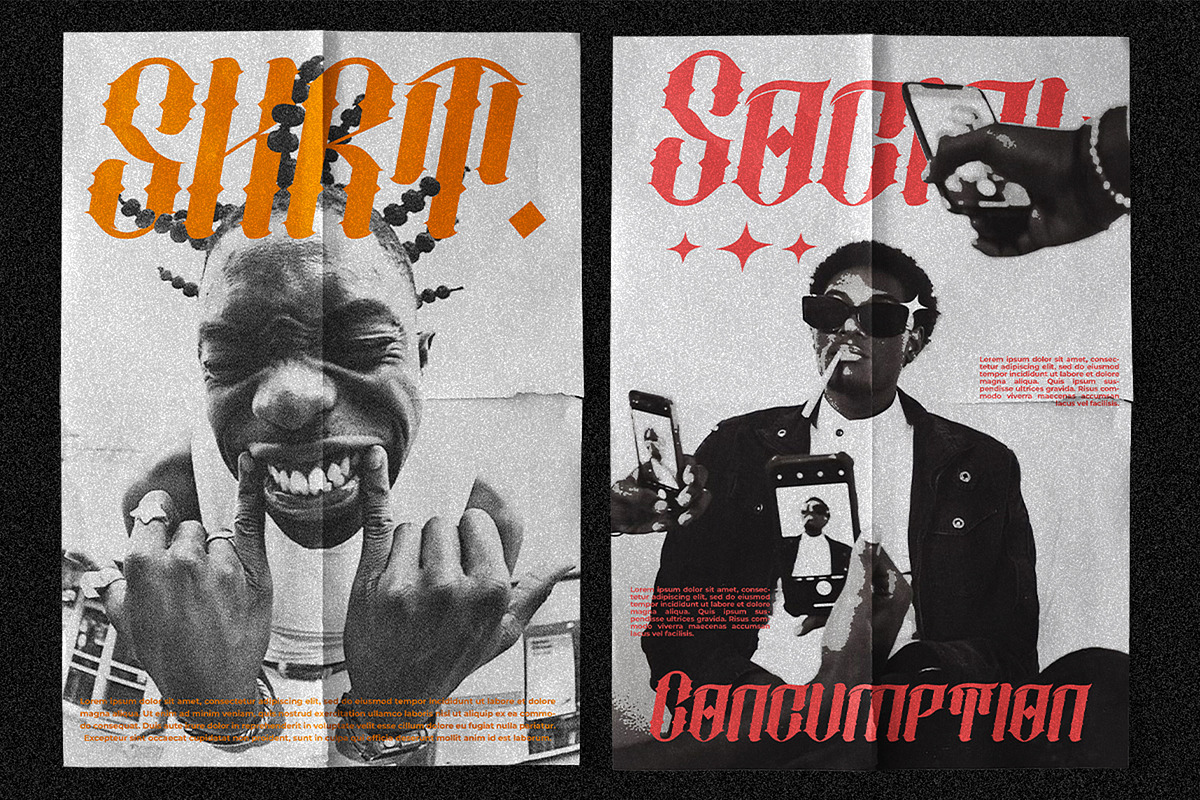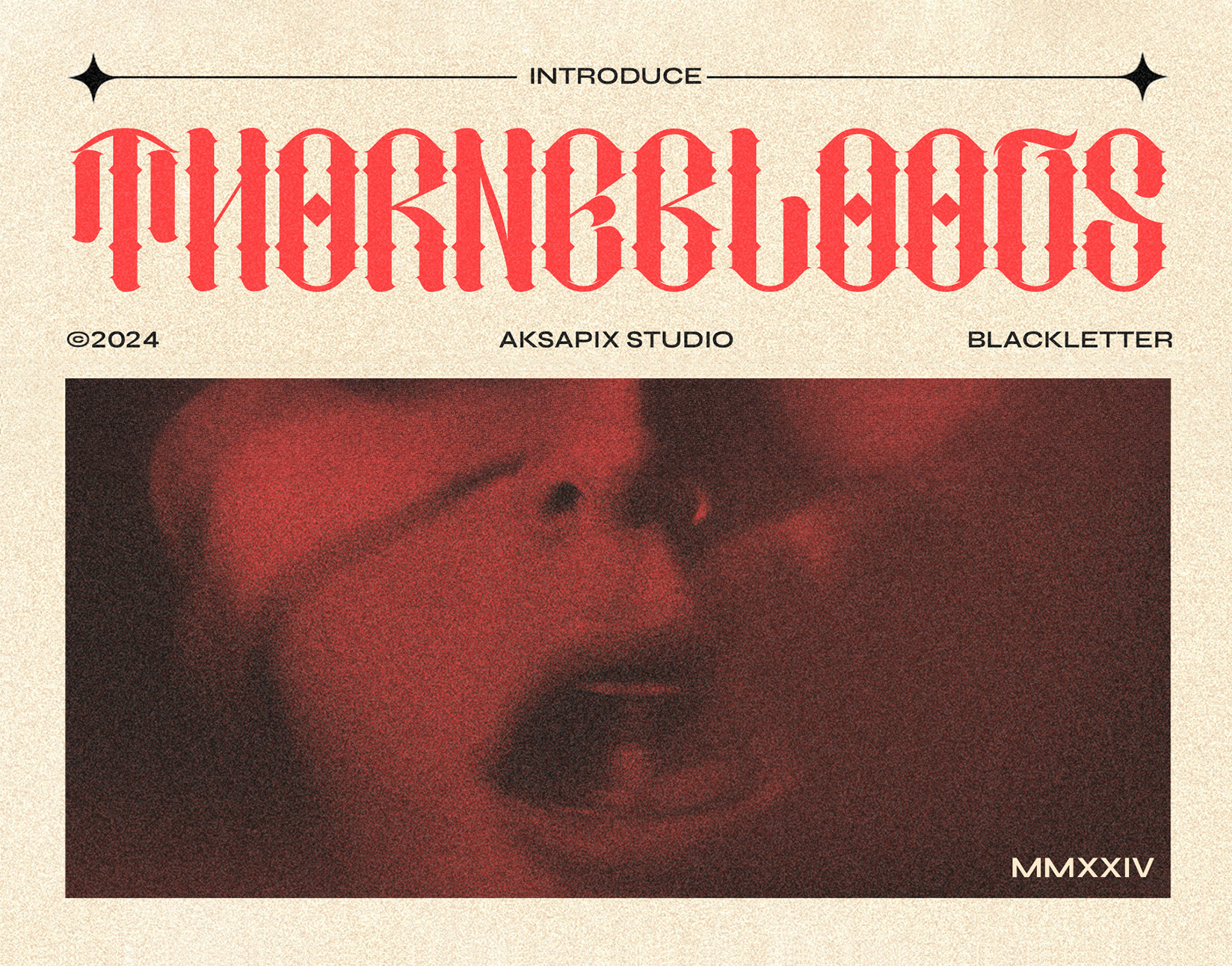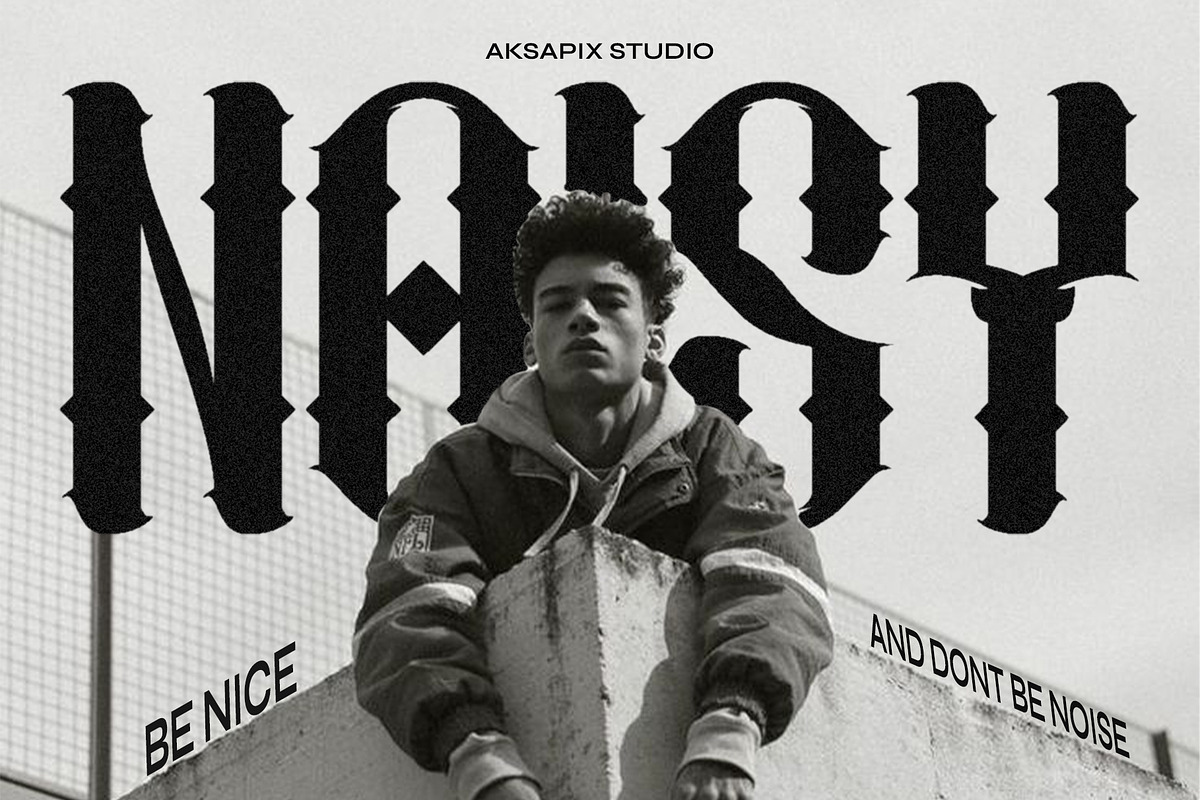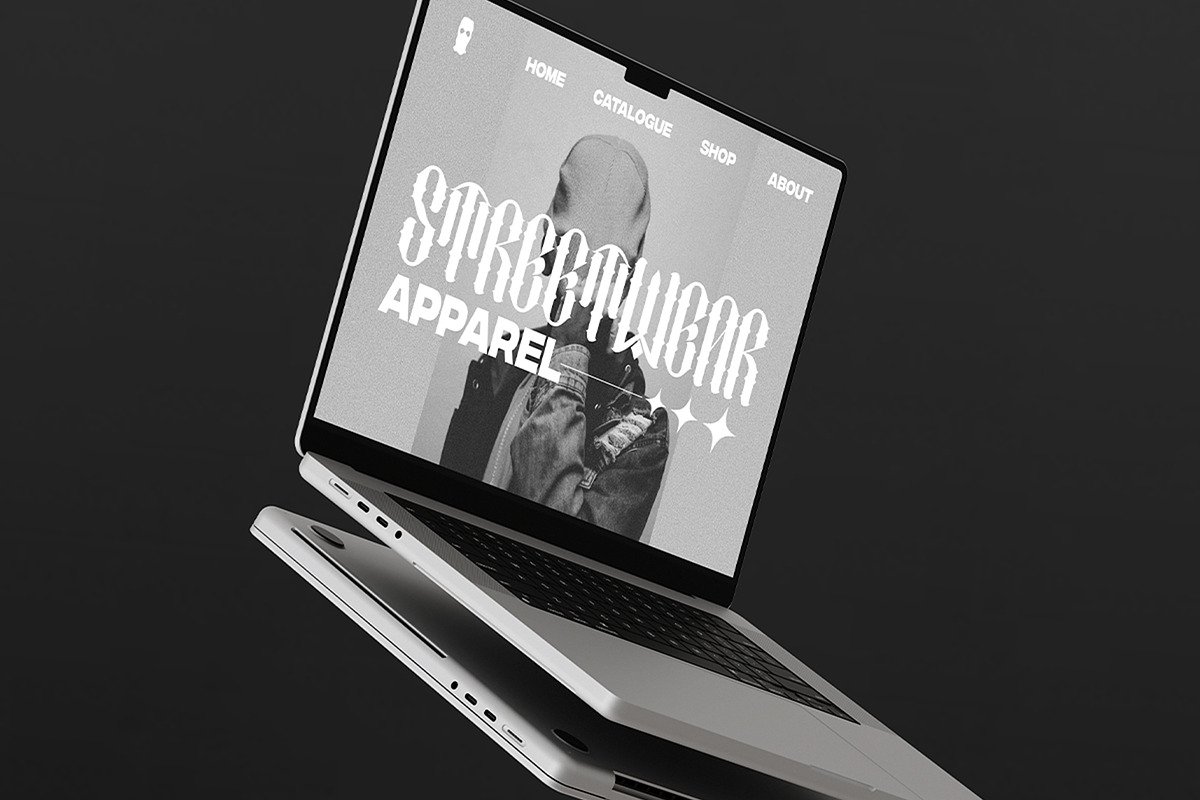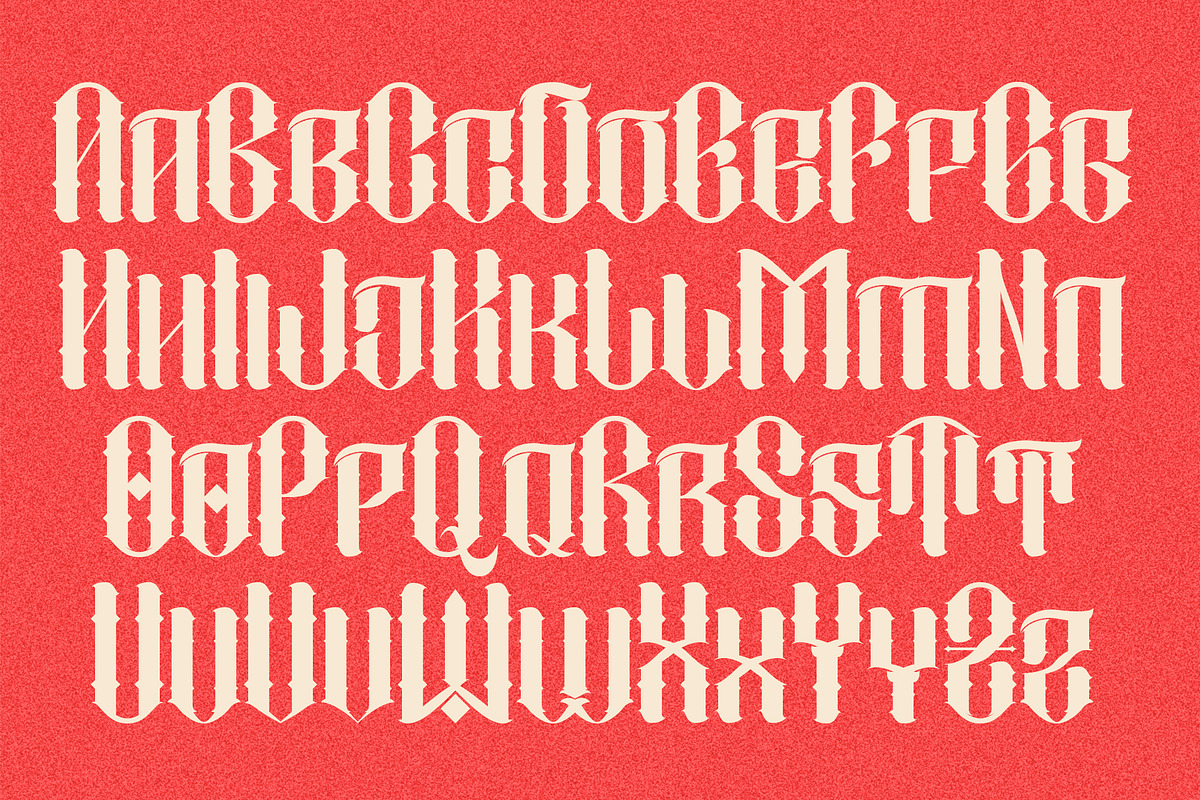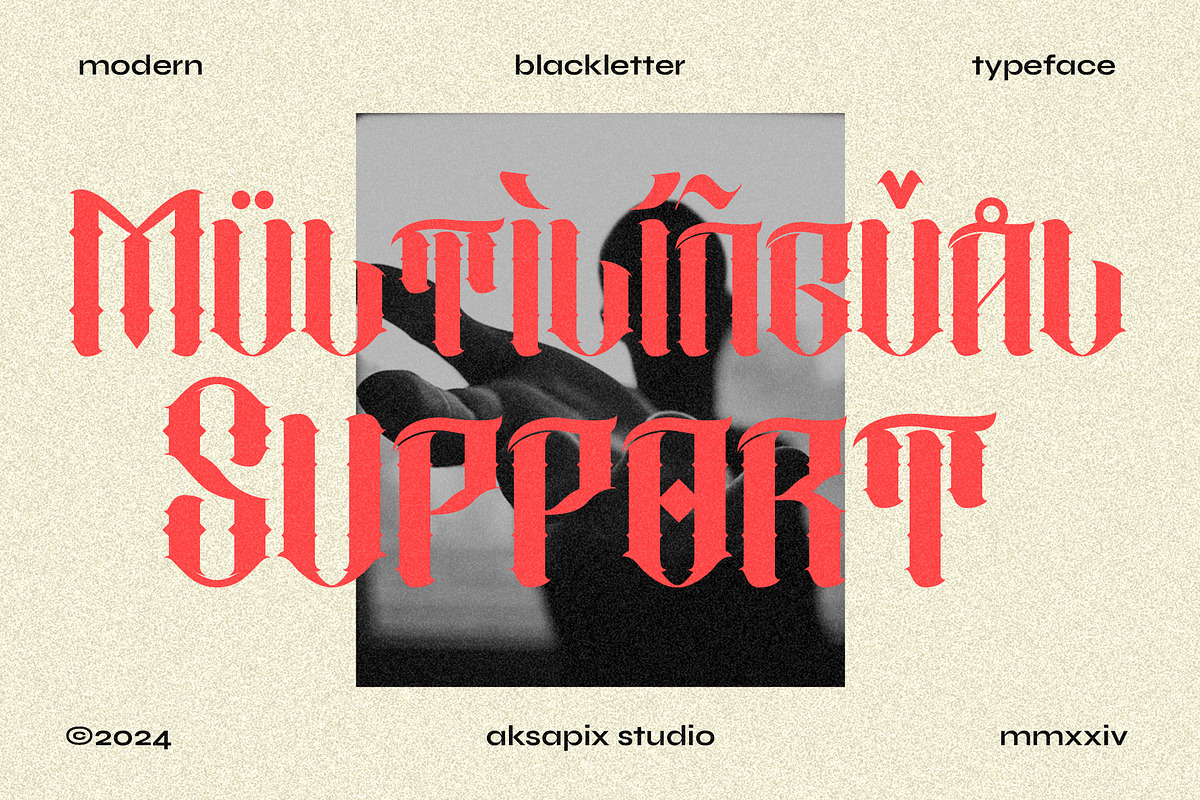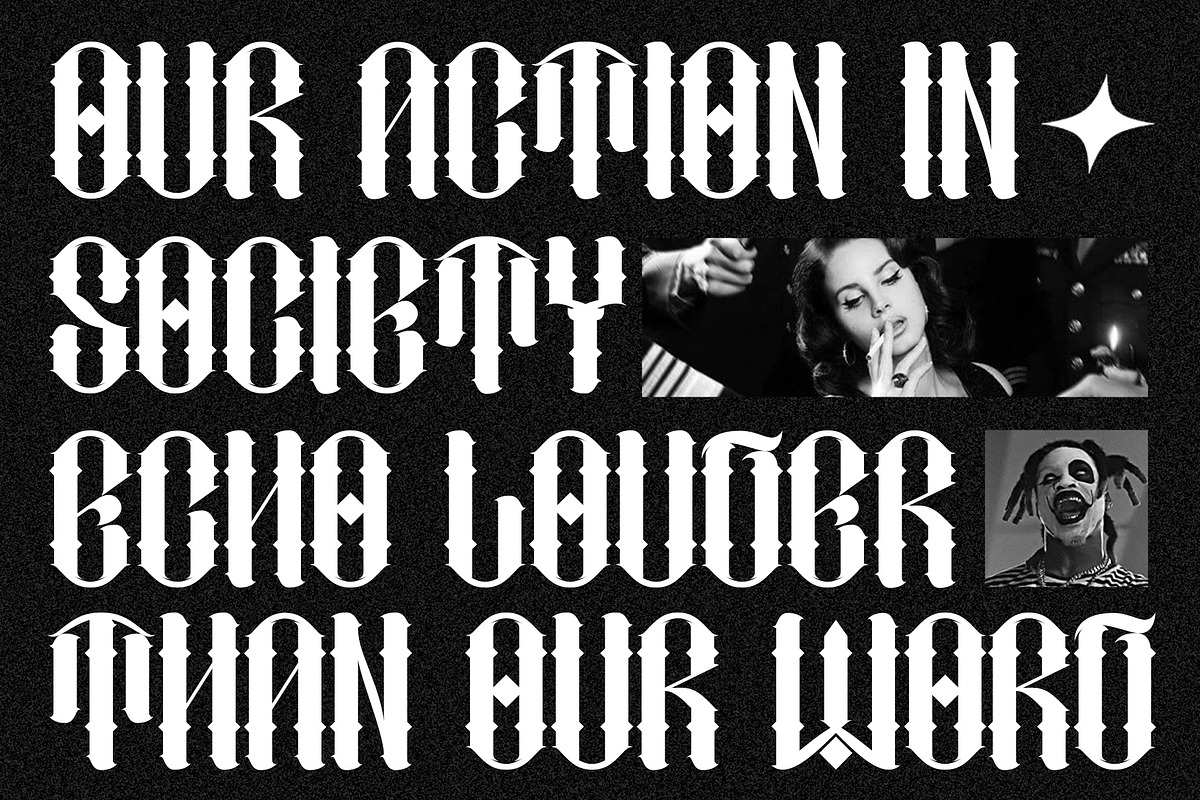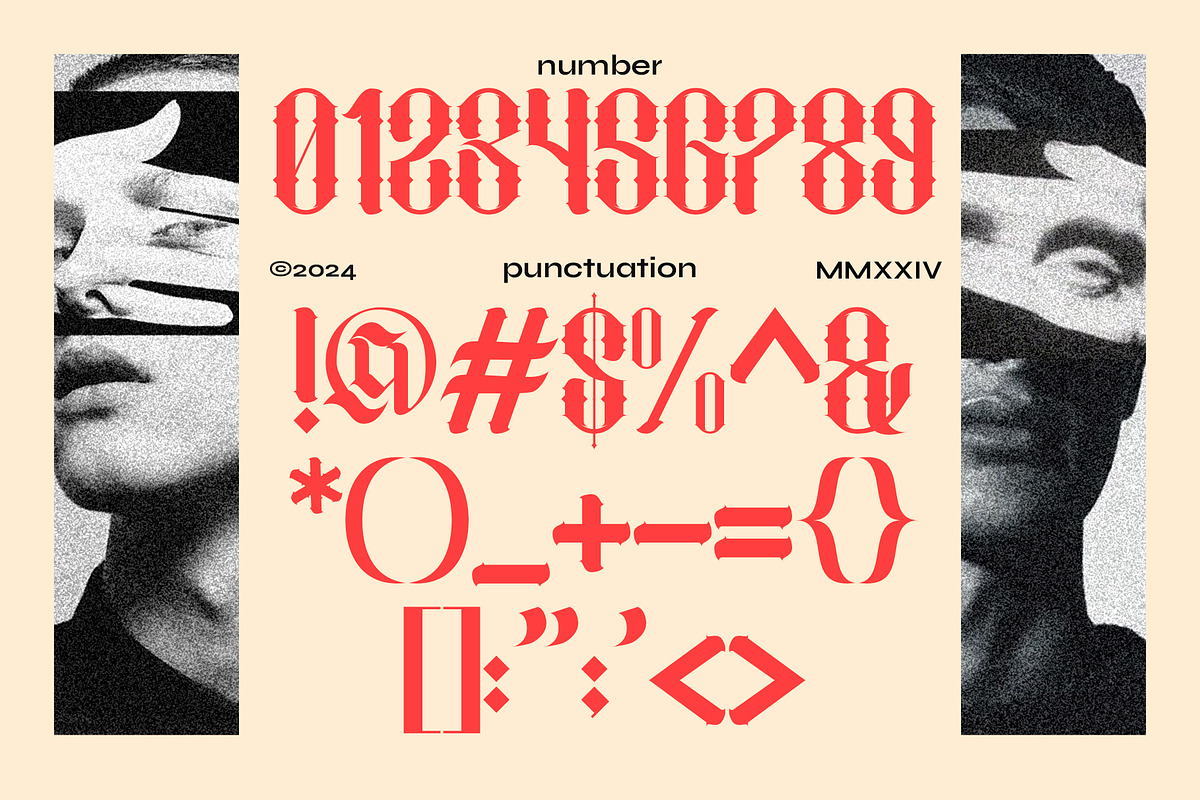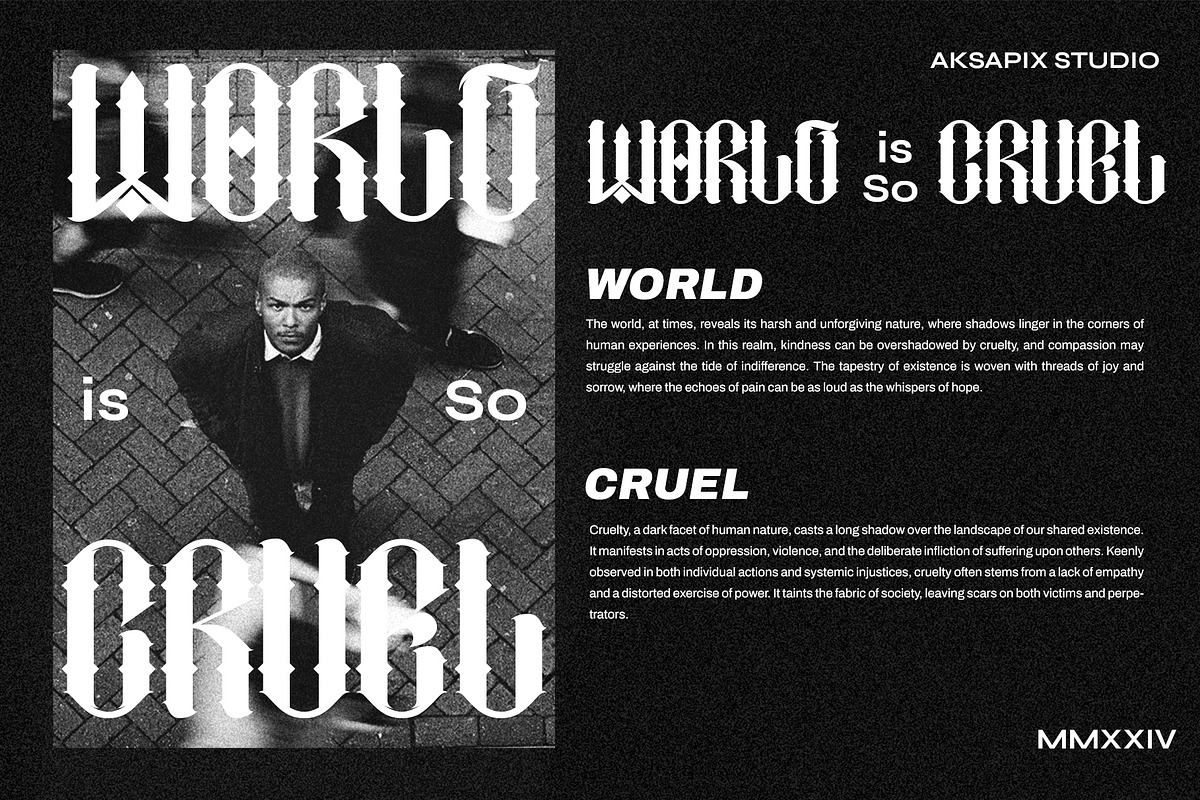
Thornebloods - Blackletter Font
Unleash the dark allure of Gothic aesthetics with Thornebloods - a striking Blackletter font that commands attention. Inspired by the intricate letterforms of traditional Gothic typography, this font adds a touch of mystery and sophistication to any design project. Whether you're crafting a logo for a metal band, designing edgy apparel, creating posters for horror films, or curating social media content with a Gothic theme, Thornebloods is the perfect choice to make your designs stand out.
Punctuation & Numbers
Embrace the darkness and unleash your creativity with Thornebloods - the ultimate Blackletter font for Gothic-inspired designs.